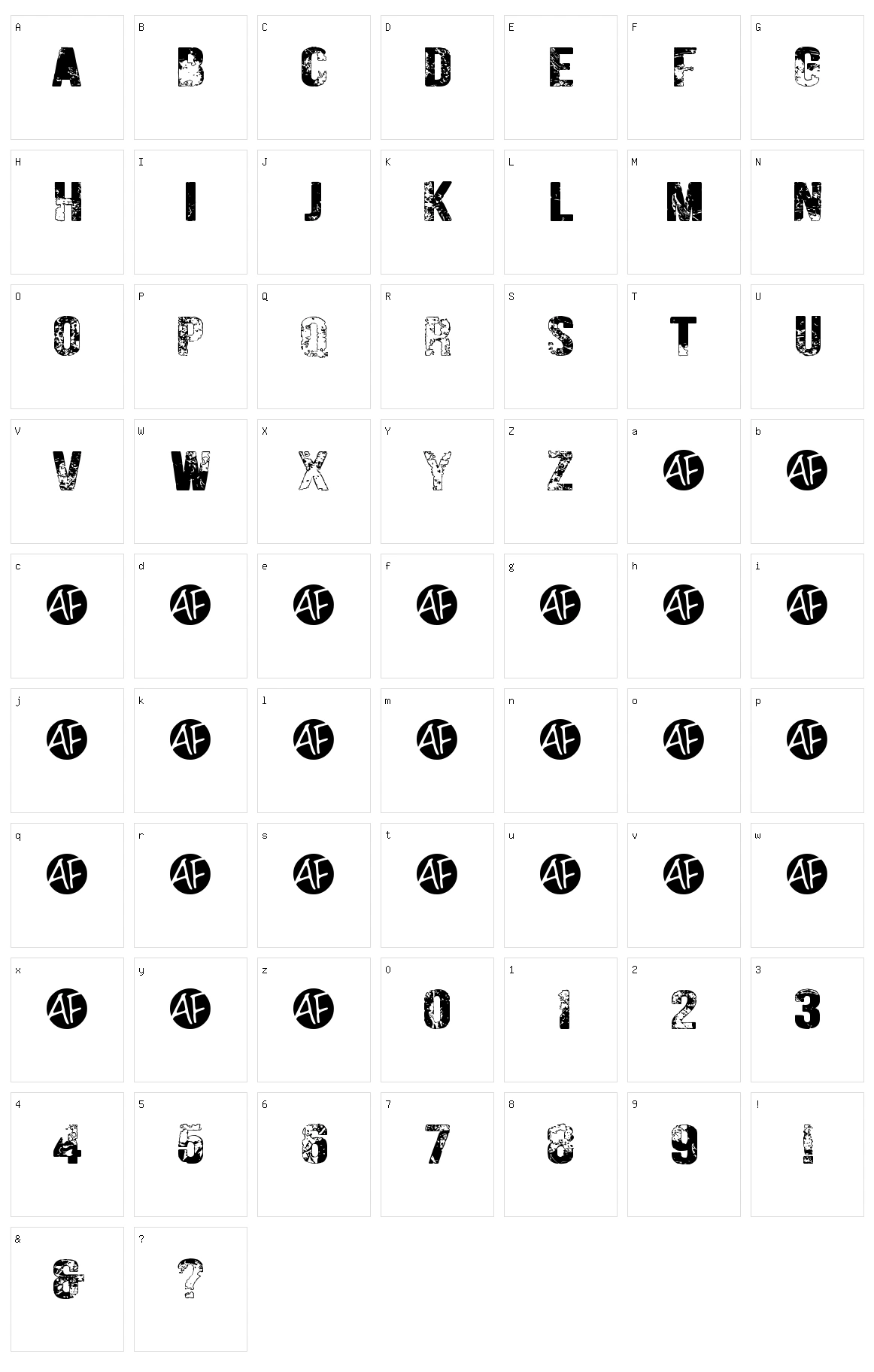
The free font Hungry Ghosts is carefully designed by Anchor Fonts, showcasing a thoughtful balance of creativity and usability and falls under the Eroded font style. When you download the ZIP file, it contains only 42.15 KB of font files, making it lightweight and quick to download. Please review the license details below to understand permitted usage and distribution rights. If license information is not available, we recommend using this font for personal projects only or contacting the author directly for commercial usage permissions.